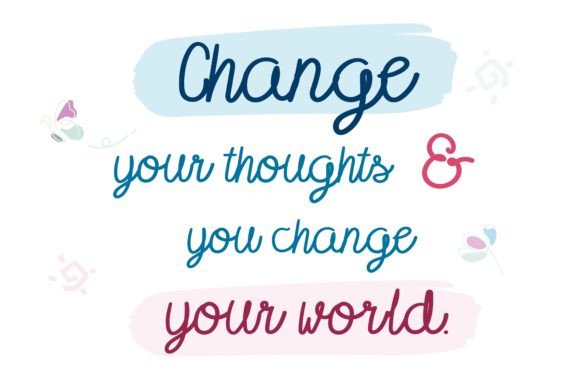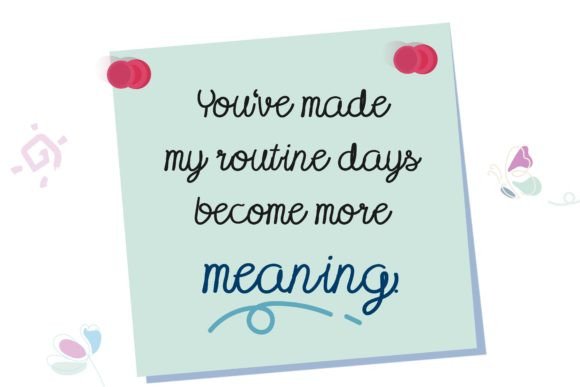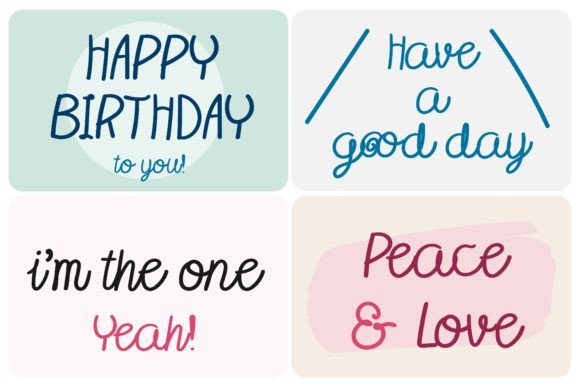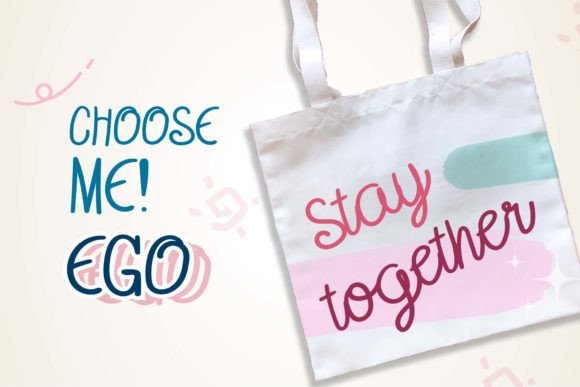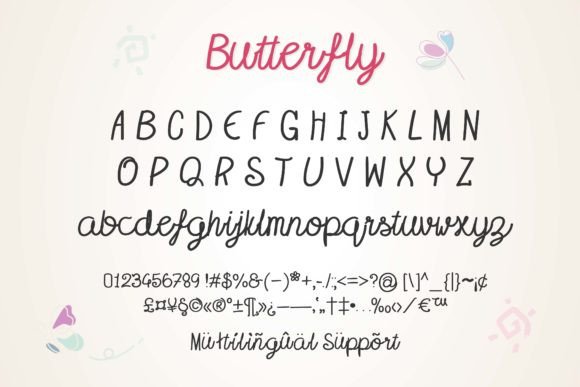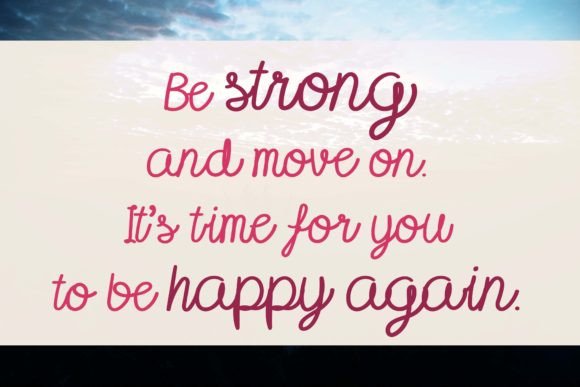
Introducing the Delightful Butterfly Font: A Cute and Handwritten Addition to Your Design Arsenal
Are you on the hunt for a font that adds a touch of whimsy and playfulness to your designs? Look no further than the Butterfly Font, a charming and handwritten typeface that’s perfect for a variety of creative projects. Whether you’re designing shirts, cups, cards, or any other material that requires a fine, informal touch, this font is sure to delight.
The Characteristics of Butterfly Font
So, what makes the Butterfly Font so special? For starters, its cute and handwritten appearance gives it a unique, organic feel that’s hard to replicate with more formal fonts. This makes it an excellent choice for designers and crafters who want to add a personal touch to their work. The font’s informal look is perfect for:
- T-shirts and hoodies
- Cups and water bottles
- Stationery and journaling
The Benefits of Using Butterfly Font
But what really sets the Butterfly Font apart is its technical features. This font is PUA encoded, which means you’ll have easy access to a wide range of glyphs and ligatures. For those who may not be familiar, PUA (Private Use Area) encoding allows designers to use special characters and symbols that aren’t found on a standard keyboard.
This means that with the Butterfly Font, you’ll be able to:
- Add unique and creative flourishes to your designs
- Experiment with different letter combinations and arrangements
- Create custom phrases and quotes with ease
Why Designers and Crafters Love Butterfly Font
So, why are designers and crafters raving about the Butterfly Font? Here are just a few reasons:
- Easy to use: With its PUA encoding, you can easily access all of the font’s features and glyphs, even if you’re not a seasoned designer.
- Versatile: The Butterfly Font is perfect for a wide range of projects, from casual designs to more formal applications.
- Unique: With its handwritten appearance and extensive character set, this font is sure to help your designs stand out from the crowd.
Tips for Using Butterfly Font in Your Designs
Ready to get started with the Butterfly Font? Here are a few tips to keep in mind:
- Experiment with different sizes and colors: The Butterfly Font looks great in a variety of sizes and colors, so don’t be afraid to get creative!
- Pair it with other fonts: Try pairing the Butterfly Font with other fonts to create a unique and eye-catching design.
- Use it for headlines and titles: The Butterfly Font is perfect for headlines and titles, where its playful and whimsical appearance can really shine.
In conclusion, the Butterfly Font is a delightful and versatile addition to any designer’s or crafter’s toolkit. With its cute and handwritten appearance, PUA encoding, and extensive character set, this font is perfect for a wide range of creative projects. Whether you’re designing shirts, cups, cards, or anything in between, the Butterfly Font is sure to bring a touch of whimsy and playfulness to your work. So why wait? Give it a try today and see the difference for yourself!